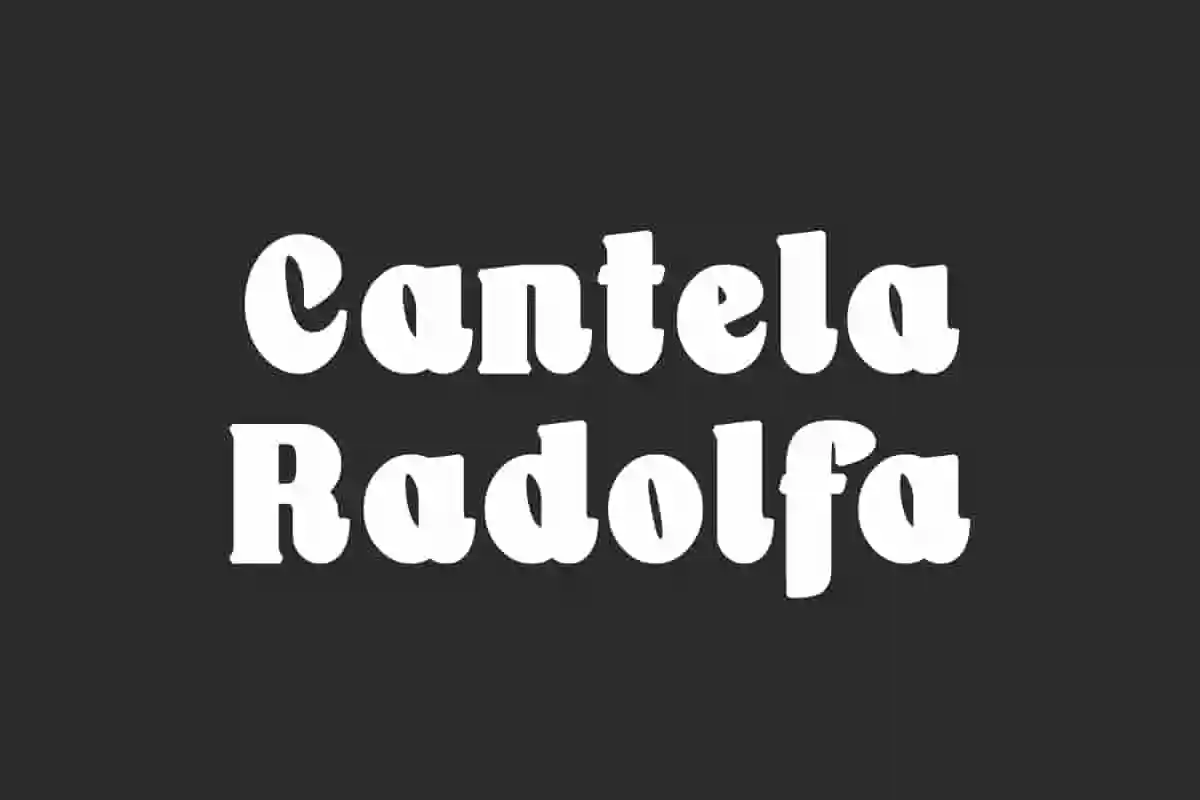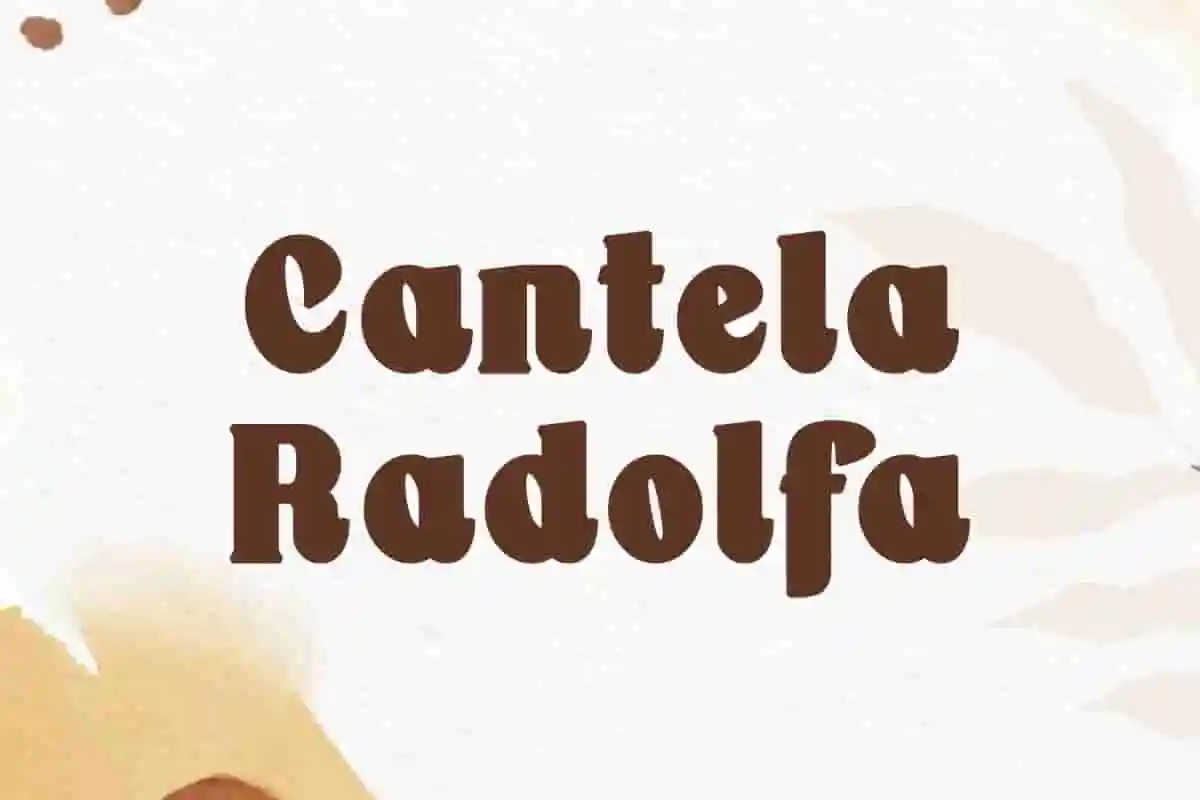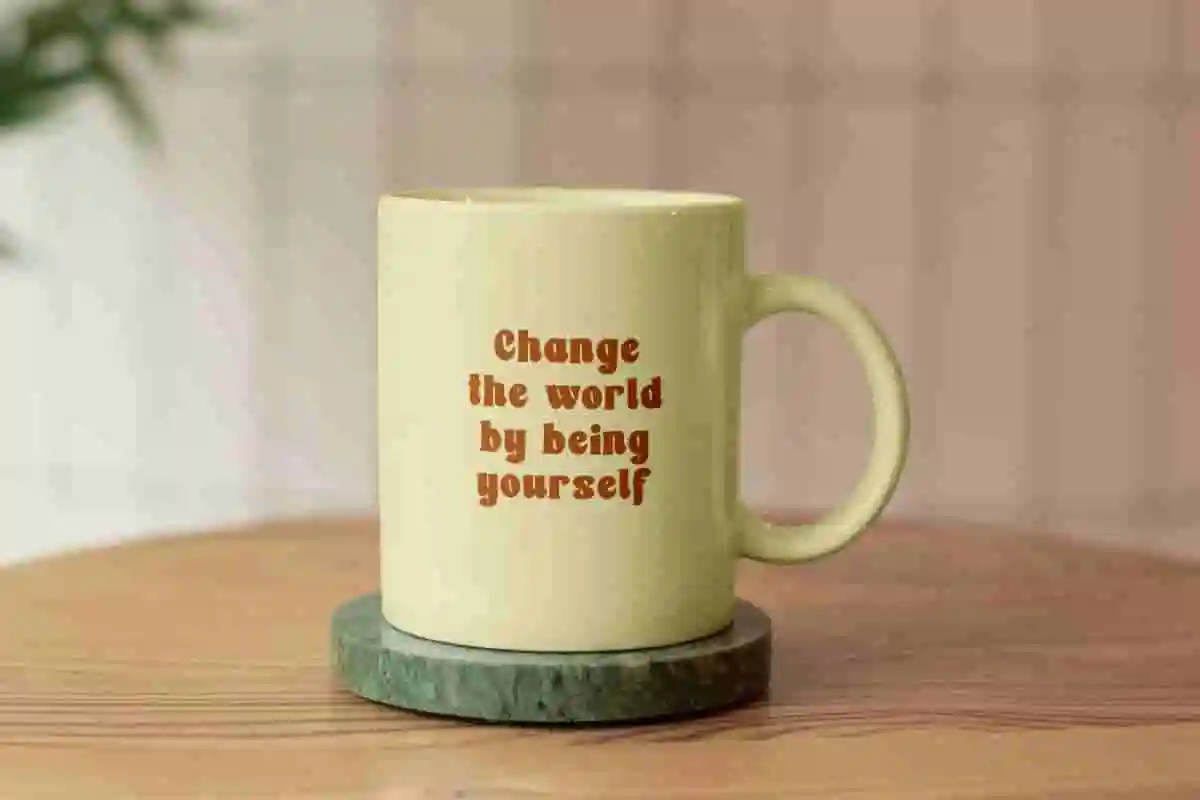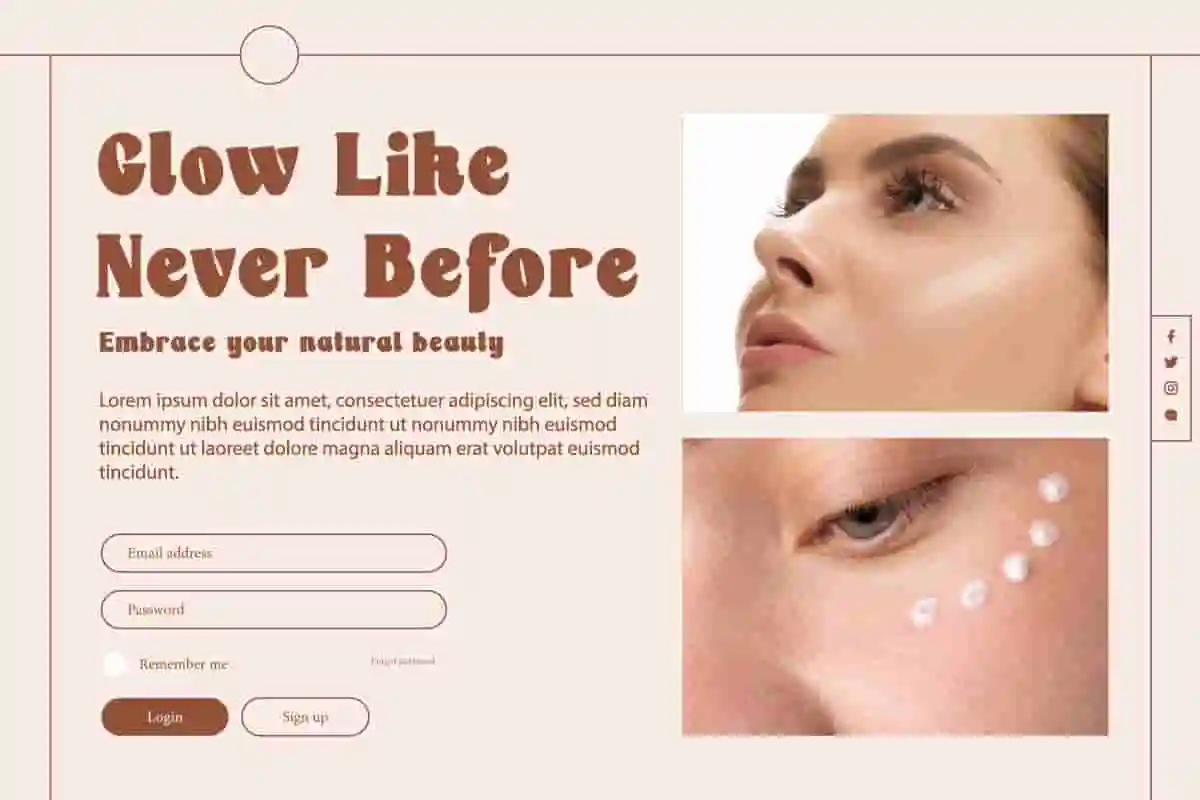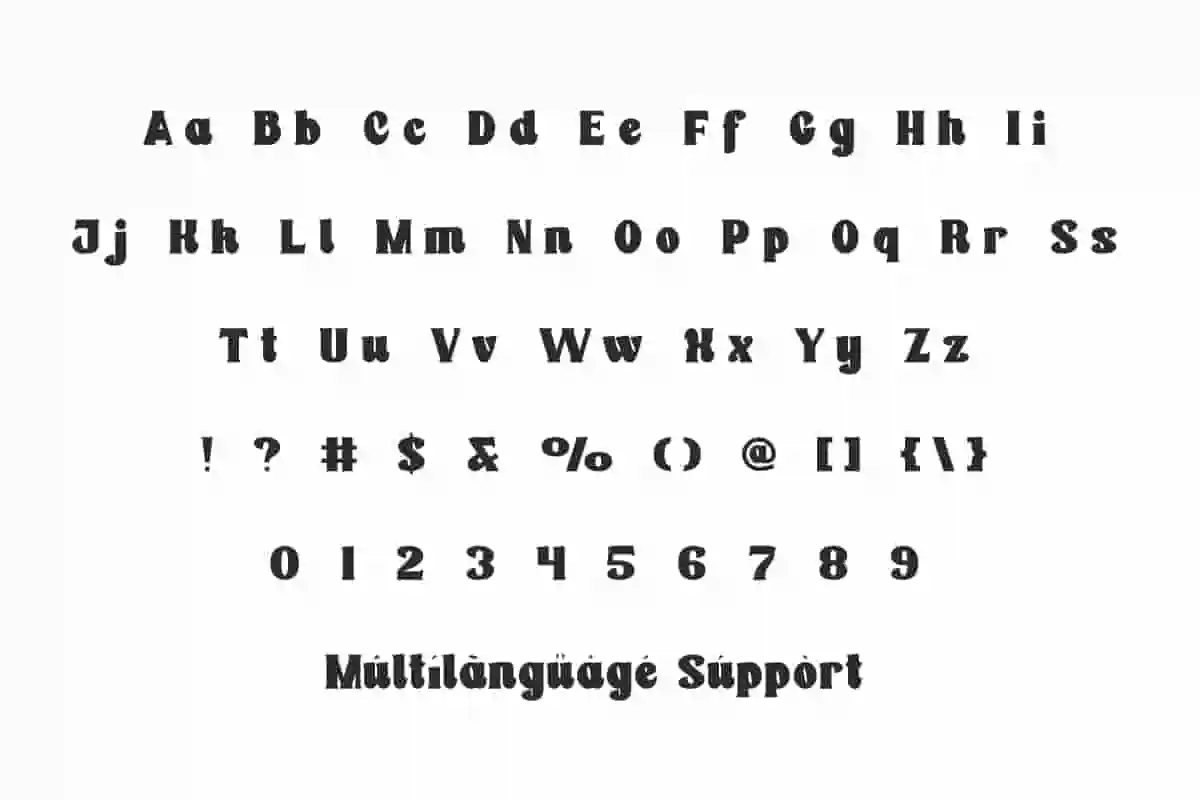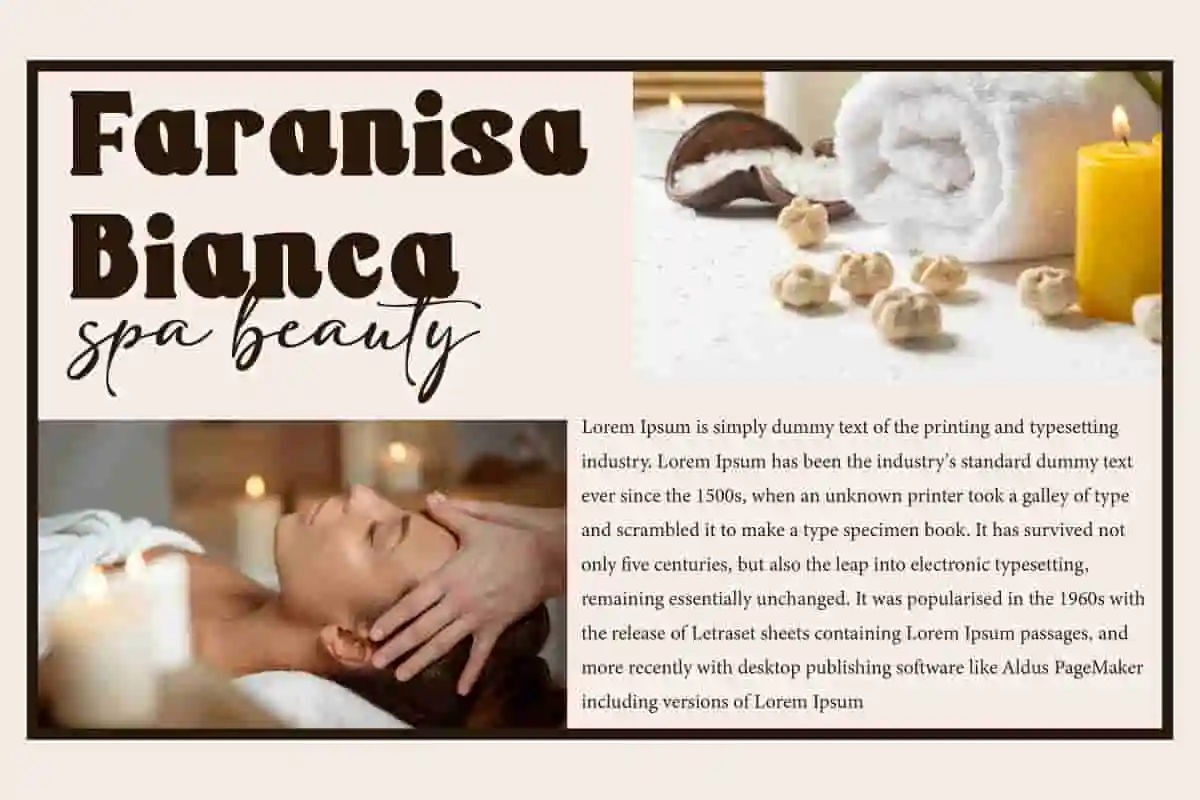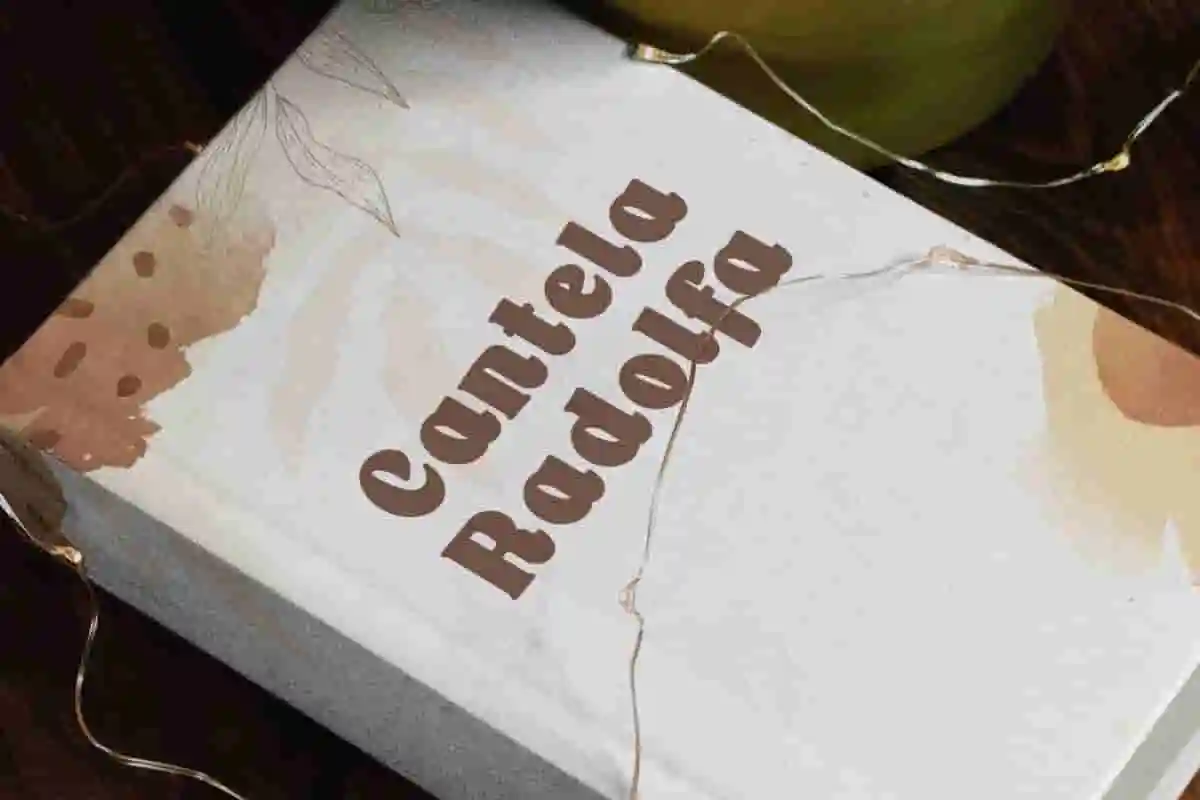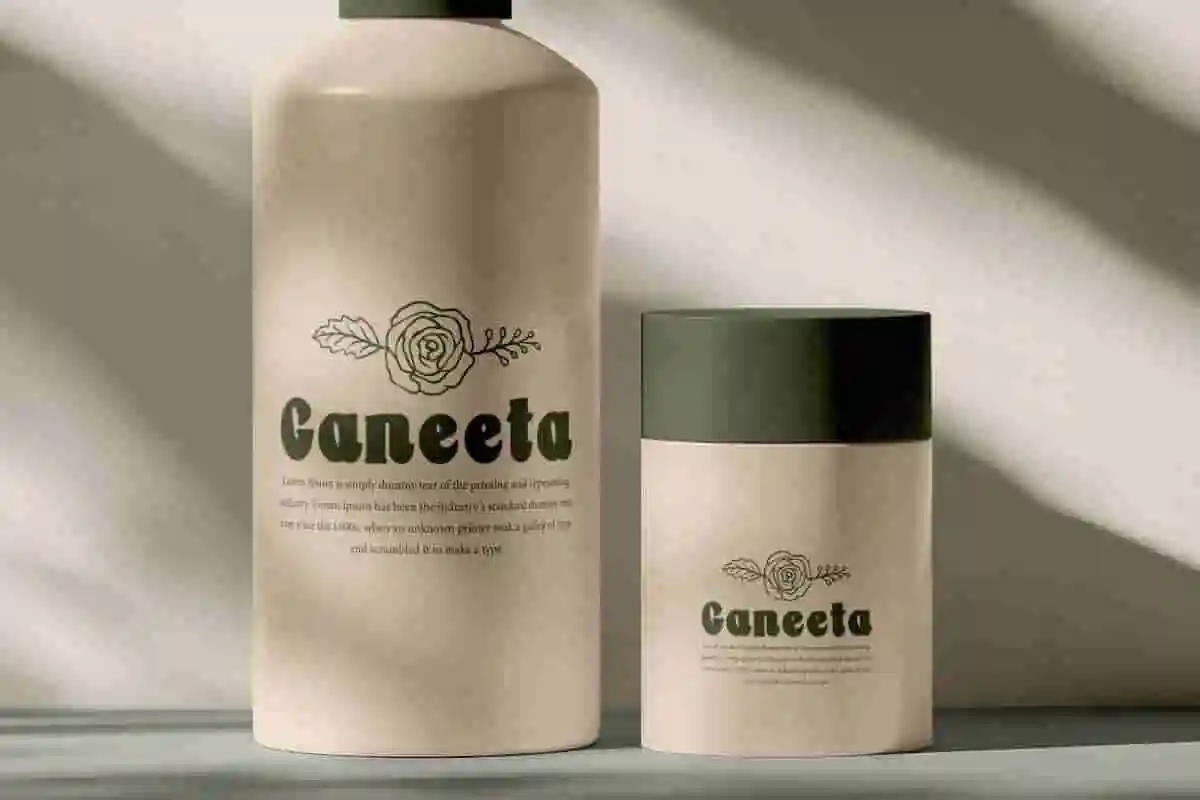
Cantela Radolfa Font is a bold and dynamic display font that gives the impression of strong and bright character. It would be suitable for any designs, such as brand image, brochure, label, logo design, magazine cover, mockup template, packaging, poster, quotes, signage, stationery, website, and more!
Cantela Radolfa Font includes a complete set of Uppercase and Lowercase Basic Characters, Numbers, Punctuation, and Symbol. The letter design gives a sporty and modern feel. Making it a perfect choice for a variety of fields, such as advertising, automotive, sports, cafe, crafts, event or festival, photography, real estate, restaurant, spa, travel, etc.